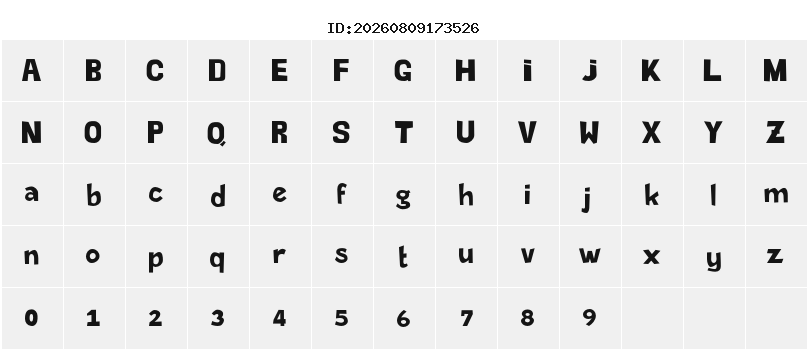
• Font Name: Paris Je T'Aime
• Font ID: Balint Erdosi : Paris, Je T'Aime : 4-9-2011
• Full Font Name: Paris, Je T'Aime
• PostScript Name: ParisJeTAime
About Paris Je T'Aime.otf
Paris Je T'Aime.otf is a modern, elegant sans-serif font designed for ultimate readability and visual harmony. Perfect for branding, headlines, web design, and print materials.